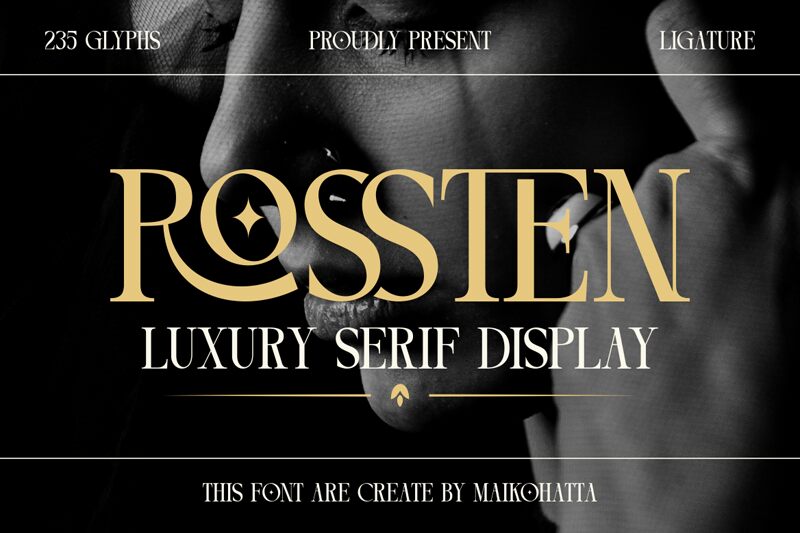
Rossten font family by Gilang Ternadho is a free classic elegance that offers luxurious and sophisticated aesthetic for all your design projects. This serif font family is undoubtedly known for its ornamental details that give your typography a formal and authoritative style. Inspired by vintage font letterforms, this versatile font manages to remain refined with some modern touches while keeping an overall high-end aesthetic and timeless appeal.
Among the extensive range of design projects where you could use this font are poster designs, advertising, branding, package design, stationery design, websites, book covers, magazines, brochures, banners, and presentations.